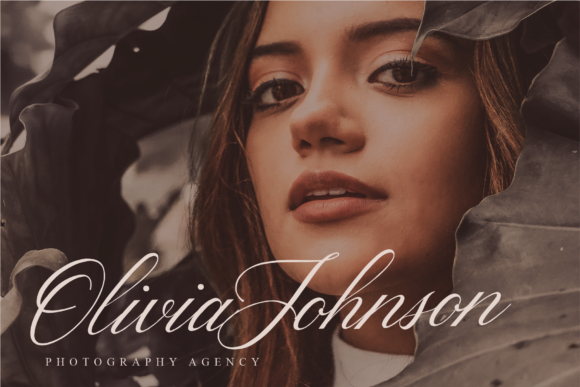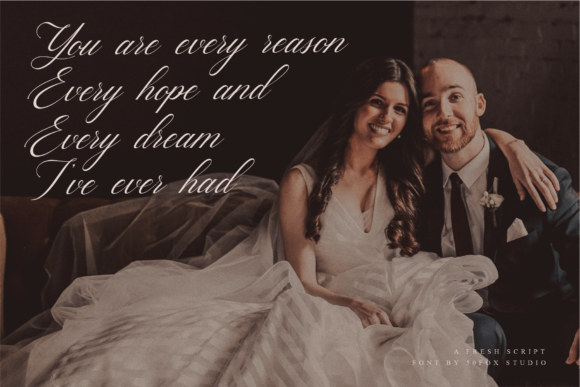
Hello Bride Font
db-ku.com - Script & Handwritten -- Hello Bride is an enchanting handwritten font. This versatile script font has a wide spectrum of applications ranging from greeting cards to headlines and is guaranteed to add a romantic feel to your next project.